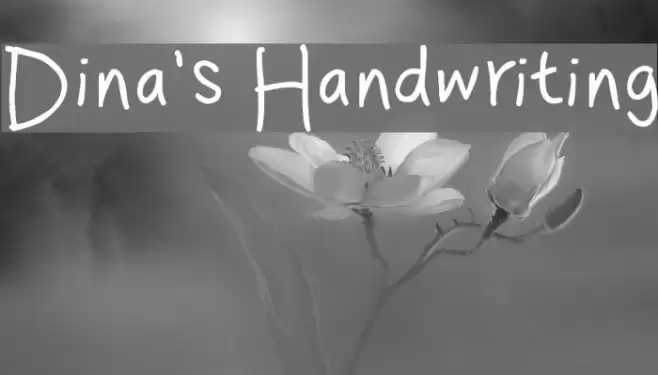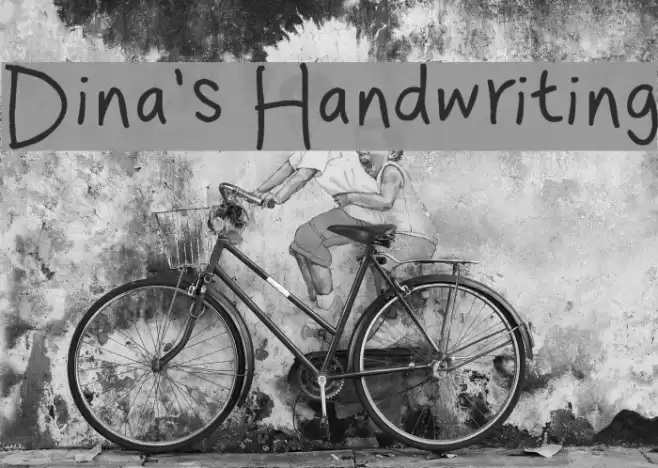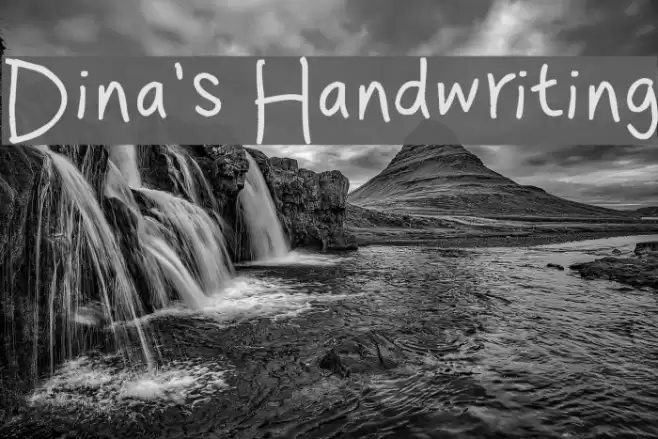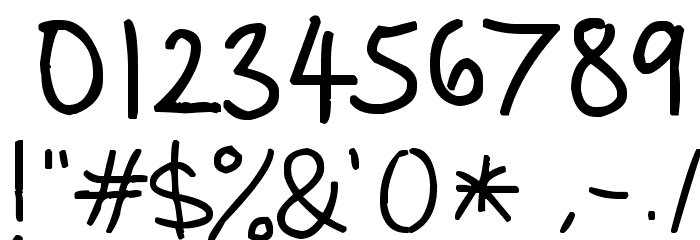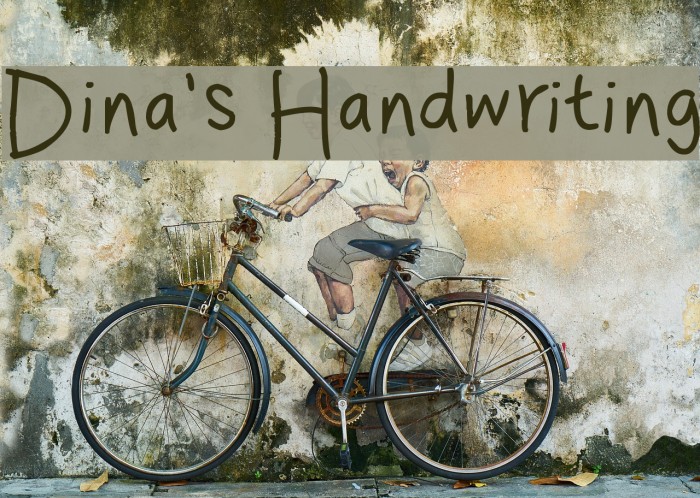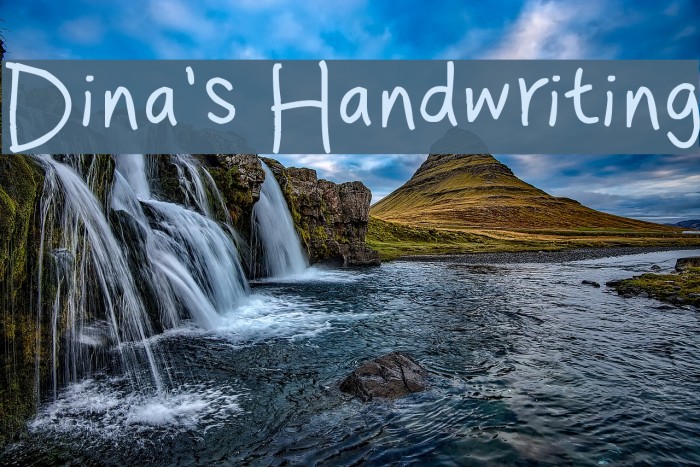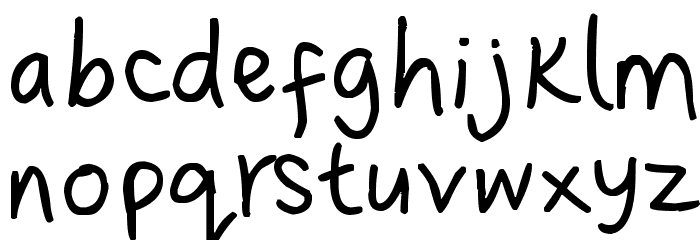
Dina's Handwriting
This font exudes a casual and personal touch, reminiscent of authentic handwriting. The characters are slightly irregular, giving it a natural and approachable feel. Each letter is distinct, with playful loops and curves that add to its charm. The uppercase letters are tall and slightly narrow, while the lowercase letters maintain a consistent flow, enhancing readability. The numbers are bold and clear, making them stand out effectively. Special characters are crafted with the same handwritten style, ensuring uniformity across the font. This font is perfect for projects that require a personal, informal, and friendly tone.
A casual, handwritten font with playful loops and a personal touch.
- Proposed Projects: Ideal for greeting cards, personal notes, informal invitations, and creative projects that require a personal touch.
- Overall Style: Casual, Personal
- Use Case: Headlines, Informal text, Creative projects